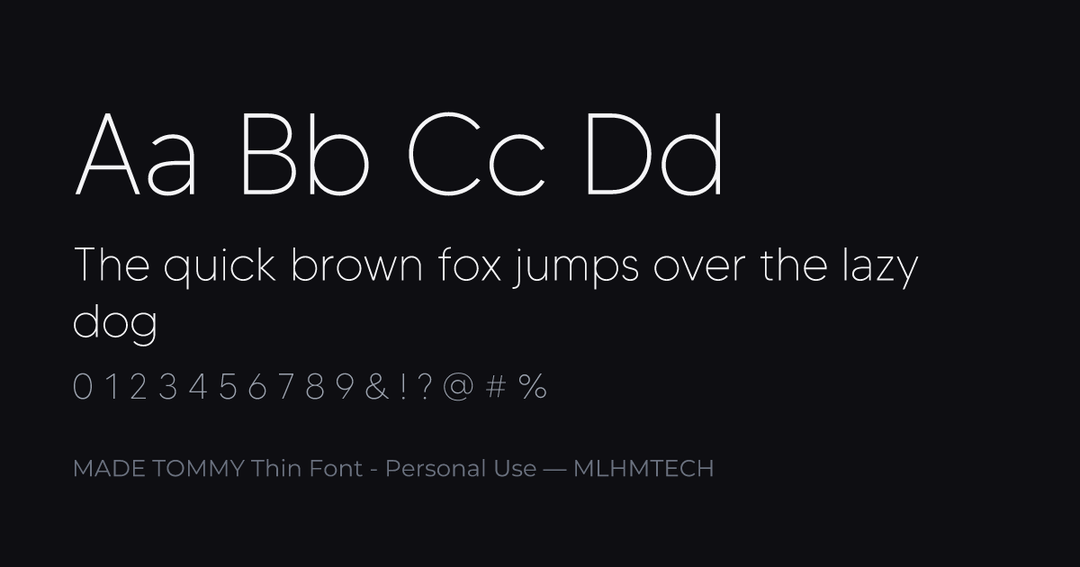
MADE TOMMY Thin Font - Personal Use
MADE TOMMY Thin is a sleek, modern sans-serif font with a minimalist aesthetic. Ideal for elegant branding, logos, and fashion-forward designs.
MADE TOMMY Thin is a refined sans-serif typeface that exudes sophistication and simplicity. Its thin strokes and clean lines make it perfect for high-end branding, editorial layouts, and minimalist design projects.
This font is part of the MADE TOMMY family, known for its geometric structure and contemporary feel. The personal use license allows you to use it in your creative projects without commercial restrictions, making it a great choice for personal portfolios, mood boards, and concept designs.